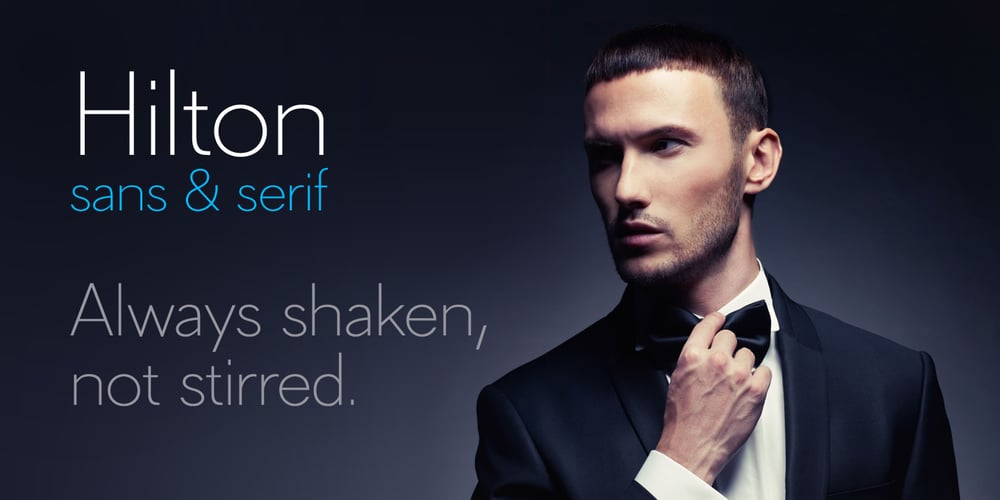
Hilton Sans Font Family was designed by Juraj Chrastina and published by Juraj Chrastina. Hilton Sans contains 1 styles and family package options. There is something special about thin fonts. On one side there is the sensitive, charming and warm touch, on other side they are uncompromising, thoroughgoing. Here the contrast can’t hide the clear shapes. Hilton Sans and Hilton Serif is a pair of highly legible, subtle and elegant sans-serif and semi-serif display faces. The quality of spacing and kerning ensured by Igino Marini.